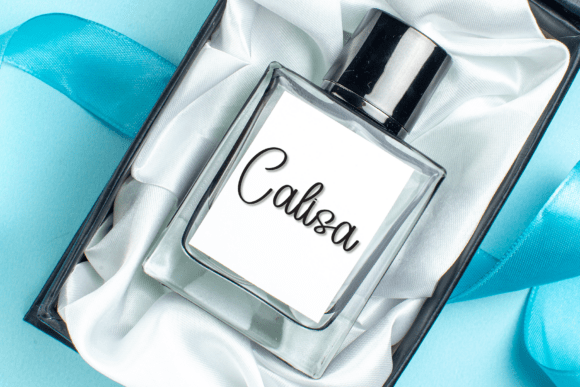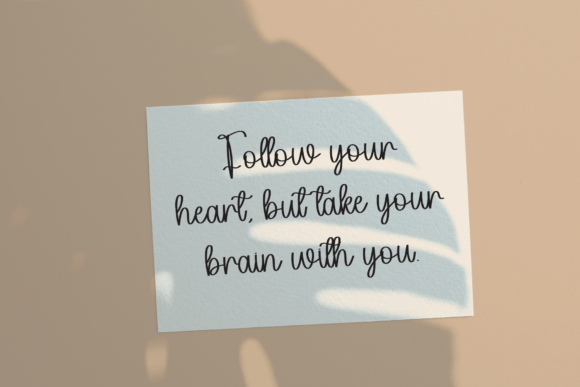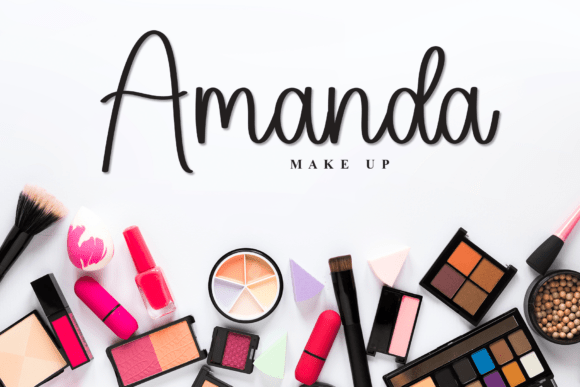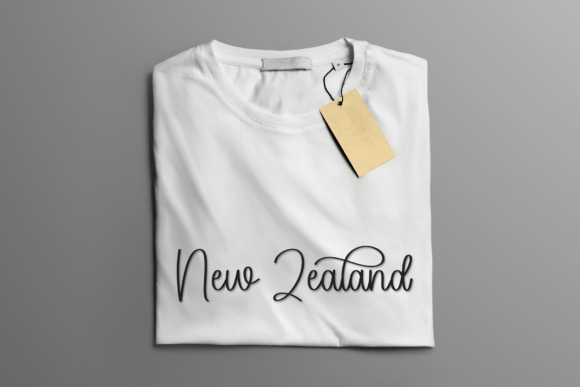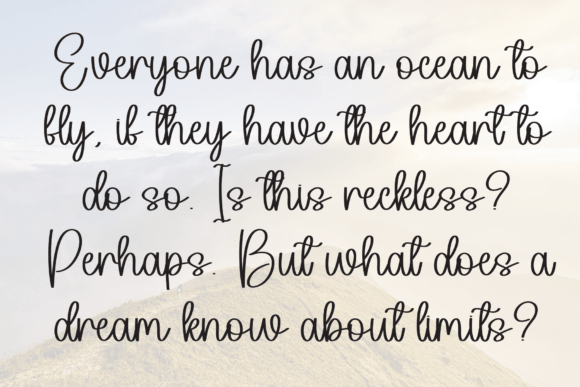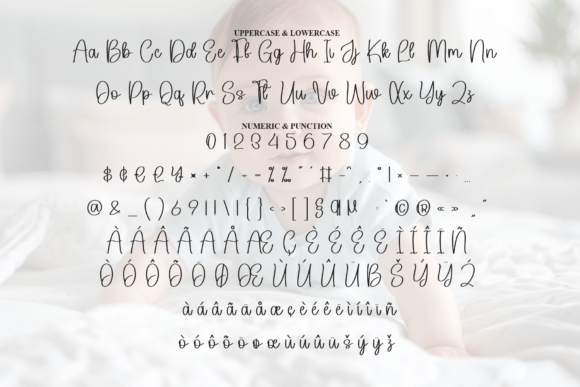
Babyboy Font: Elevate Your Designs with Artistic Flair and Contemporary Elegance
In the world of typography, few fonts manage to strike a balance between artistic expression and modern sophistication. Babyboy Font is one such exceptional typeface that brings together the fluidity of brush strokes, the dynamism of curves, and the expressiveness of letterforms. This stylish script font is designed to infuse your designs with a creative and sophisticated touch, making it perfect for a wide range of applications, from logos and invitations to packaging and social media graphics.
The Essence of Hand-Painted Calligraphy with a Modern Twist
Babyboy Font captures the essence of hand-painted calligraphy but with a modern twist that sets it apart from traditional script fonts. Its fluid brush strokes give it a natural, hand-crafted feel that resonates with designers looking for a personal touch in their work. The dynamic curves and expressive letterforms ensure that each character is not only beautiful on its own but also contributes to a harmonious and visually appealing text flow. This font is a masterful blend of traditional calligraphy techniques and contemporary design sensibilities.
Ideal for a Variety of Design Projects
Whether you’re a graphic designer, a crafty DIY enthusiast, or a digital artist, Babyboy Font offers endless possibilities for creative expression. Here are some of the key areas where this versatile font truly shines:
- Logos: Create a memorable brand identity with a logo that stands out. Babyboy Font’s unique style ensures that your brand’s name is not just a text but a piece of art that tells a story.
- Invitations: Whether it’s a wedding, a birthday party, or a baby shower, Babyboy Font adds an elegant and personal touch to your invitations, setting the tone for a special event.
- Packaging: Elevate your product packaging with a font that exudes quality and style. Babyboy Font can help your product stand out on crowded shelves.
- Social Media Graphics: From Instagram posts to Facebook banners, this font can help you create engaging and stylish content that captures your audience’s attention.
Why Choose Babyboy Font?
Babyboy Font is more than just a typeface; it’s a design statement. Here are a few reasons why designers and crafters are gravitating towards this stylish script font:
- Visual Impact: The font’s unique characteristics ensure that your designs leave a lasting impression.
- Versatility: Its adaptability across various design projects makes it a valuable addition to any designer’s toolkit.
- Contemporary Elegance: Babyboy Font brings a touch of modern sophistication to your designs, making them instantly more appealing.
Tips for Using Babyboy Font Effectively
Babyboy Font is a stylish script font that brings a unique blend of artistic flair and contemporary elegance to the world of design. Its fluid brush strokes, dynamic curves, and expressive letterforms make it an ideal choice for designers and crafters looking to add a creative and sophisticated touch to their work. With its versatility and visual impact, Babyboy Font is set to become a go-to typeface for a wide range of design projects. Whether you’re creating logos, invitations, packaging, or social media graphics, this font is sure to elevate your designs to new heights.